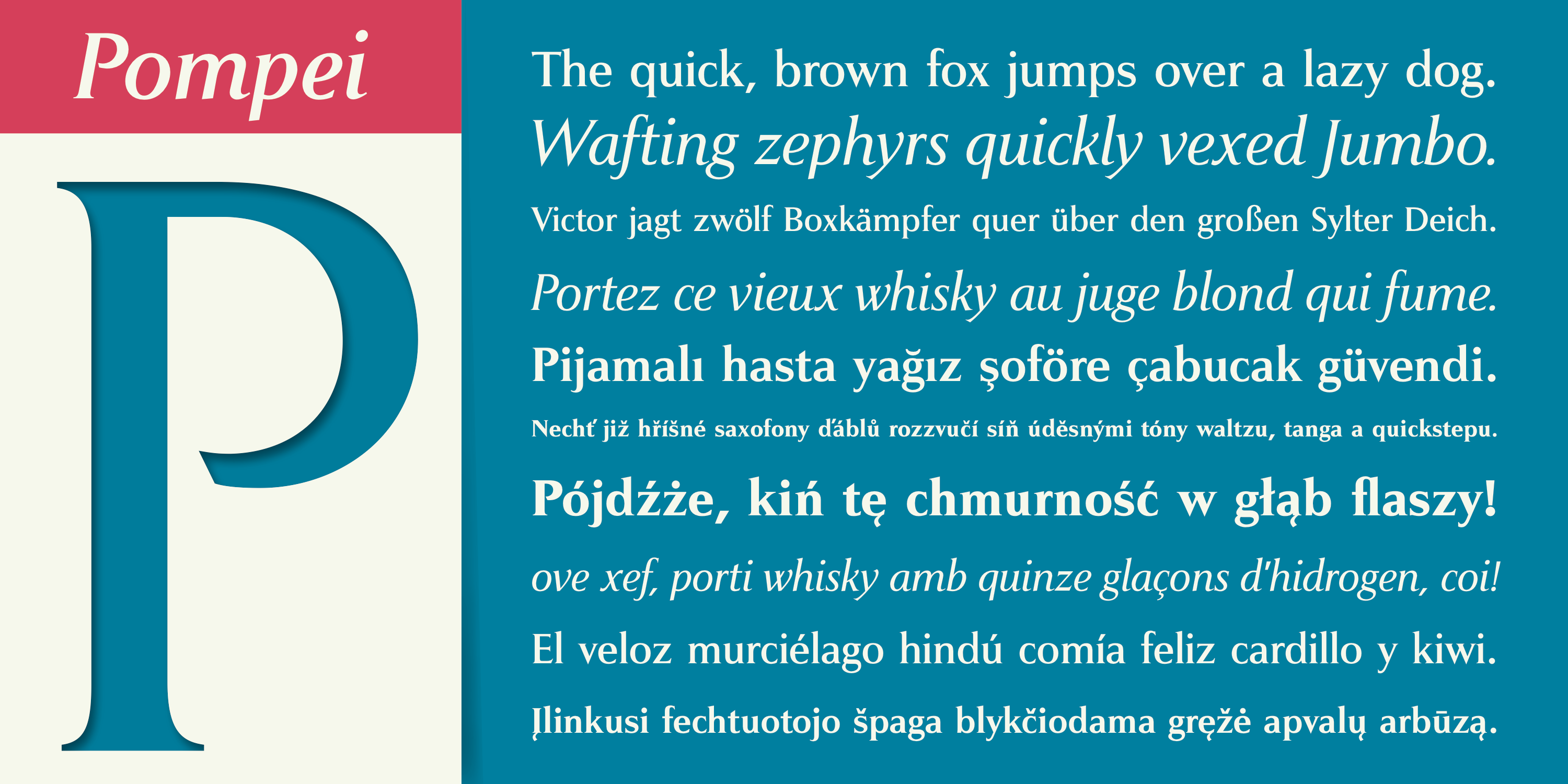
Pompei Font is perfect for historical documentaries, classical architecture projects, museum exhibitions, ancient history publications, cultural heritage branding, archaeological presentations, educational materials, and traditional ceremonial designs.
What makes Pompei Font exciting is its authentic connection to ancient Roman typography that brings historical gravitas and classical elegance to contemporary design projects. This distinguished typeface captures the essence of ancient inscriptional lettering with carefully crafted proportions and traditional details that evoke the grandeur of classical civilization, making it ideal for projects celebrating heritage, tradition, and timeless values.
The Pompei Font family includes Regular, Medium, and Bold weights, each preserving the characteristic classical proportions and dignified appearance that define this historically-inspired typeface's authoritative presence and cultural significance.
Pompei Font Free Download provides access to a typeface that bridges ancient history with modern design excellence. This remarkable font combines archaeological authenticity with contemporary functionality, making it perfect for cultural institutions, educational organizations, and brands seeking to communicate tradition and heritage. The font's classical construction and historical references create immediate recognition while ensuring excellent readability in modern applications. Whether designing museum catalogs, historical documentaries, or heritage brand identities, this font delivers the cultural authority and aesthetic distinction that sophisticated audiences expect. Its historical foundation and timeless appeal make it essential for projects celebrating classical civilization, archaeological discoveries, and cultural preservation, ensuring communications honor the past while engaging contemporary audiences with authentic typographic craftsmanship.